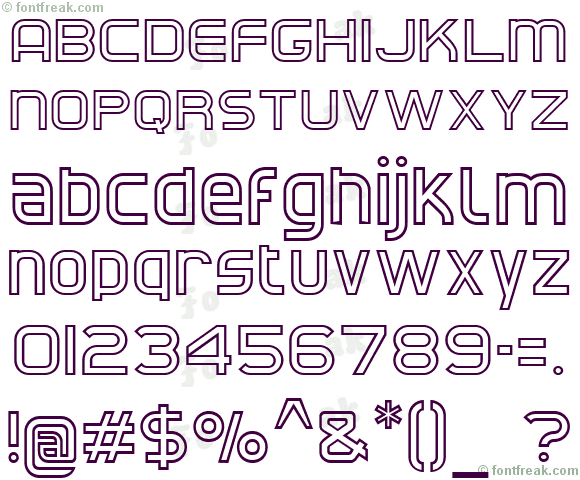
CATNorthLicht-Bold
CATNorthLicht-Bold is a striking sans-serif typeface designed by Peter Wiegel, released under a freeware license. This font showcases a balance of modernity and clarity, making it an excellent choice for various design applications. The visual characteristics of CATNorthLicht-Bold are defined by its bold stroke weight, which provides a strong presence on the page. The contrast is subtle but effective, ensuring legibility while maintaining a contemporary aesthetic. The spacing is well-considered, allowing for smooth readability in both large and small text settings.
This versatile typeface shines in a multitude of use cases. Its bold nature makes it ideal for eye-catching headlines in promotional materials, such as flyers and posters. Additionally, CATNorthLicht-Bold is a great choice for restaurant menus, where clarity and style are paramount in enticing customers. It also works wonderfully in branding projects, providing a distinctive look for logos and business cards. Furthermore, this font can enhance digital content, making it suitable for social media graphics and blog headings.
The target audience for CATNorthLicht-Bold includes graphic designers seeking a bold yet approachable typeface, small business owners looking to create impactful branding, and content creators aiming to elevate their visual storytelling. By incorporating this font into their work, they can ensure that their text not only conveys information but does so with style and personality.